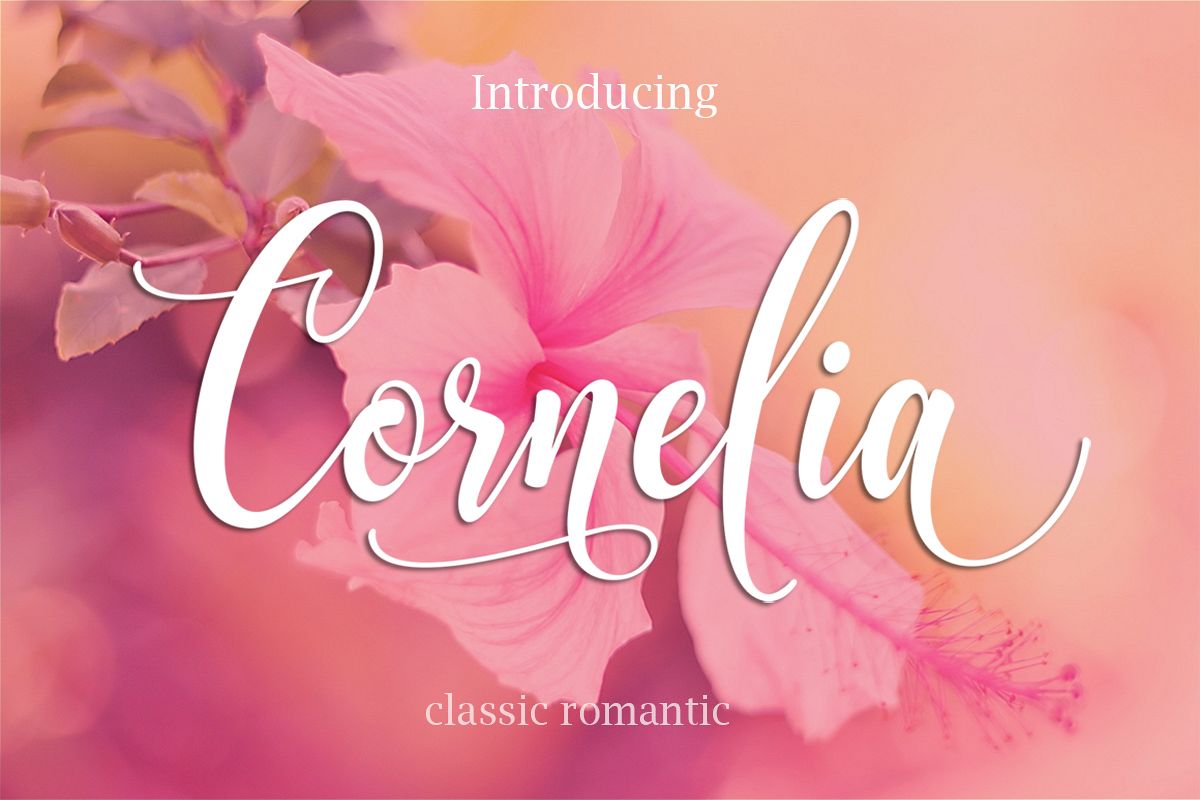
Cornelia
Cornelia Script is a beautiful modern font that comes with 372  glyphs. It features smooth lines and characters that weld together nicely. The font has a modern calligraphy style and features beautiful swashes. It is easy to read and fun to work with. There is no doubt that you will get professional results with this font and you will be able to amaze your customers.